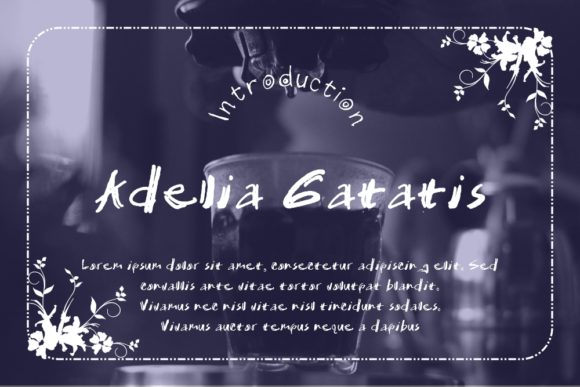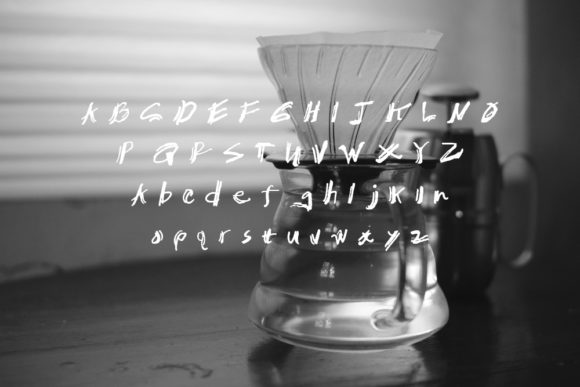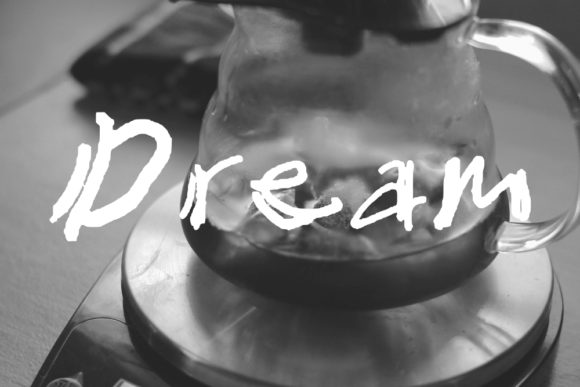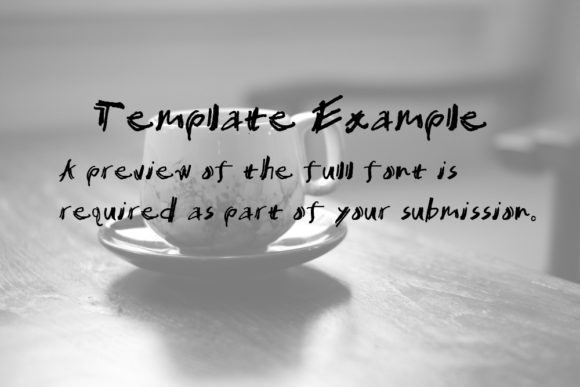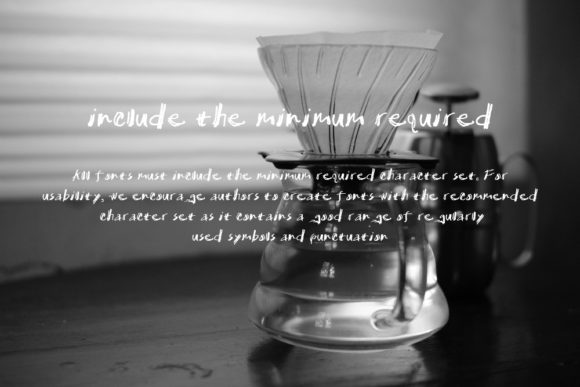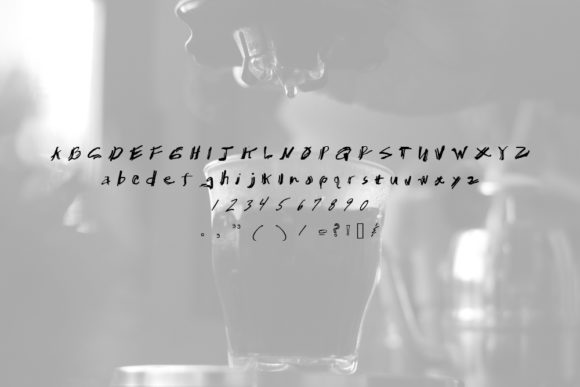
Adelia Gatatis Font
About Adelia Gatatis Font
Adelia Gatatis is a unique and interesting handwritten font. Distinct and special, this font looks incredibly adept on a wide variety of contexts!